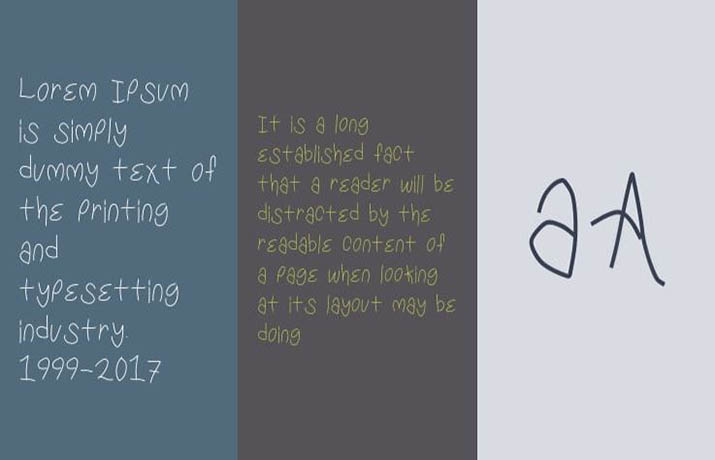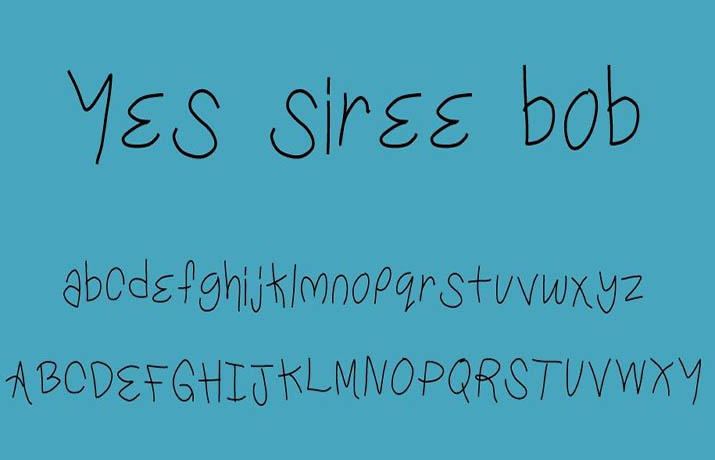
Yes siree bob Font is a simple script typeface that has pencil-style letters featuring a beautifully flowing handwritten letter design. It was designed by Nerdle Pants.
This font family comes in a single weight with TTF format. It contains 379 glyphs including uppercase, lowercase, number, symbols, and punctuation. Plus, it also supports 69 languages.
All the textures are created by the designer with his own hands in which he uses light strokes to maintain a decent flow and natural flow. But at the same time, it adds irregularity to the entire typeface.
This typeface did not follow a proper baseline, and the space between letters showed that the child had drawn all the letters. But it’s a cool way to represent a unique typeface to the public.
Features of This Font:
- Uppercase & lowercase letters, numbers, symbols, and punctuation
- 379 unique glyphs
- 69 multilingual languages support
Yes siree bob Font (Details)
| Font Name: | Yes siree bob Font Family |
| Style: | Handwritten, Pencil, Script |
| Font Designer: | Nerdle Pants |
- Its unique texture makes it suitable for a wide range of notable applications including book covers, niche quotes, gaming graphics, book covers, greeting/wedding cards, signs, banners, invitations, birthday cards, headers, letterhead, signage, labels, news, posters, beautiful cards, and product design and packaging.